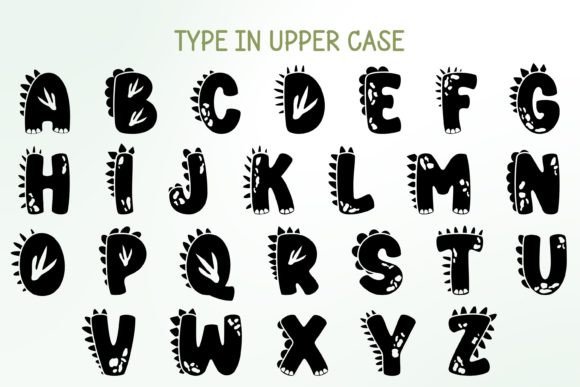
Dinosaur Font
Dinosaur is a cute decorative font ideal for crafting, and perfect for designs that need a playful, cheery accent. Dinosaur Font is suitable for book covers, posters, packaging, merchandise, logotypes, and many more!